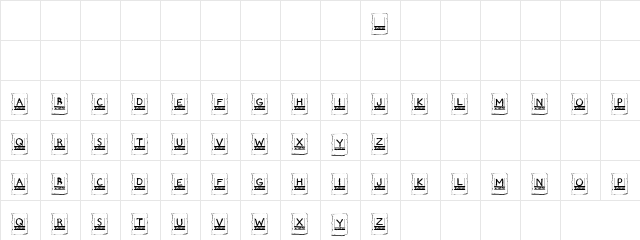
Torn Paper Regular
Design Context for Torn Paper Typeface
Torn Paper is a composed and adaptable typeface that performs quietly and consistently across a wide range of design contexts.